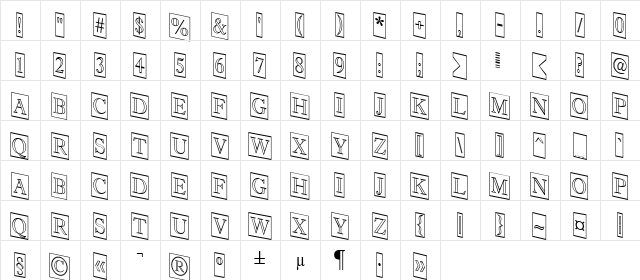
a_AntiqueTitulTrCmDnOtl Regular
Design Context for a_AntiqueTitulTrCmDnOtl Typeface
a_AntiqueTitulTrCmDnOtl has the warm character of retro typography — evoking diners, record sleeves, and the golden age of print advertising.
Font Pairing: Combine a_AntiqueTitulTrCmDnOtl with a simple slab or neutral sans — period-accurate companions reinforce the vintage feel without competing for attention.
Pro Tip: Lean into a_AntiqueTitulTrCmDnOtl's period character by pairing it with aged paper textures, muted colour palettes, and vintage illustration styles.